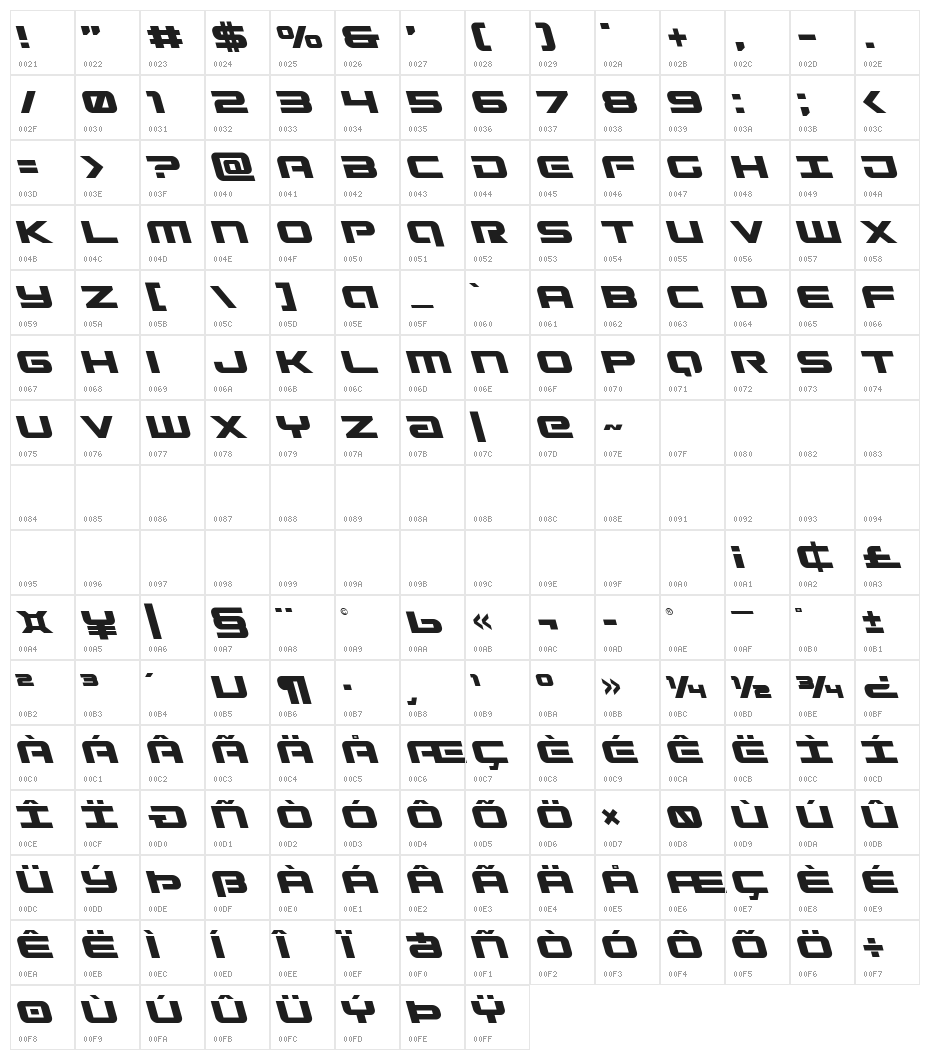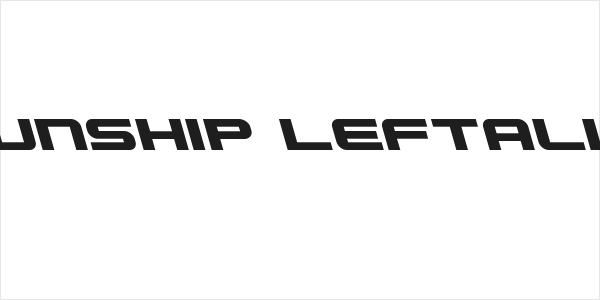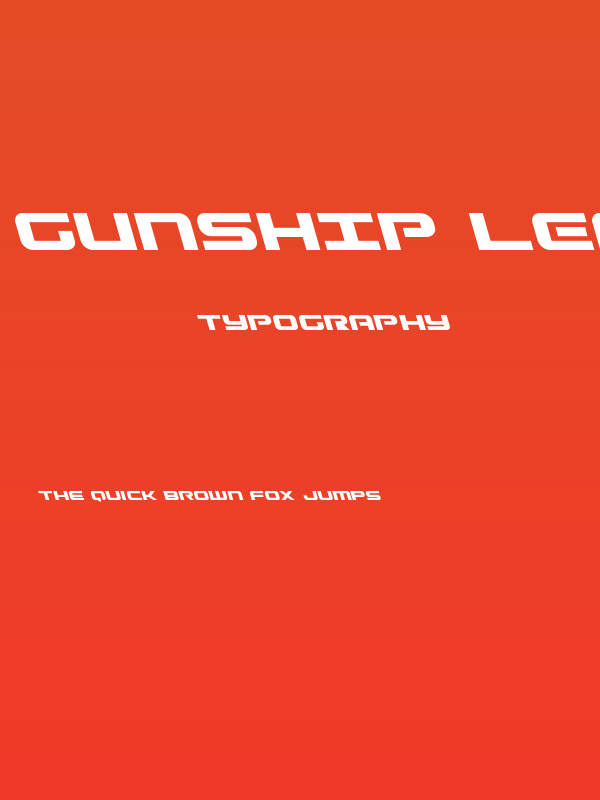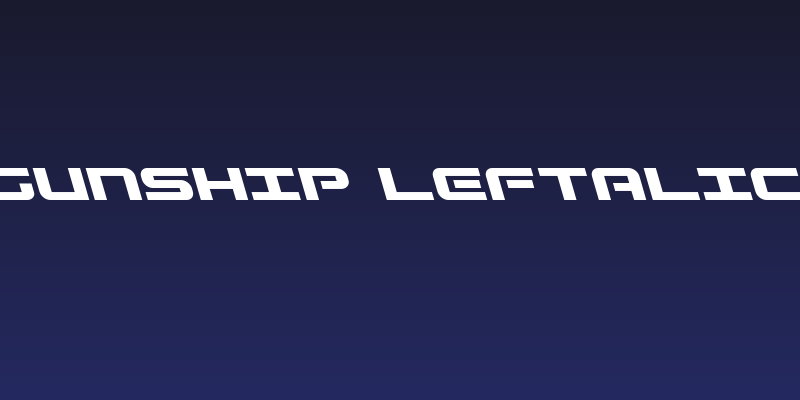
Gunship Leftalic Font
Gunship Leftalic Description
This font features a bold, futuristic design with a distinct slant to the left, giving it a dynamic and forward-moving appearance. The characters are wide and angular, with a mechanical and industrial feel. The uppercase and lowercase letters maintain a consistent style, with sharp edges and a uniform thickness throughout. The numbers and special characters follow the same design principles, ensuring a cohesive look across all elements. This font is ideal for projects that require a modern and edgy aesthetic, such as technology branding, video game titles, or sci-fi themed designs.
| Use Case | Logos, Headlines |
| Proposed Projects | Ideal for technology branding, video game titles, sci-fi themes, and industrial design projects. |